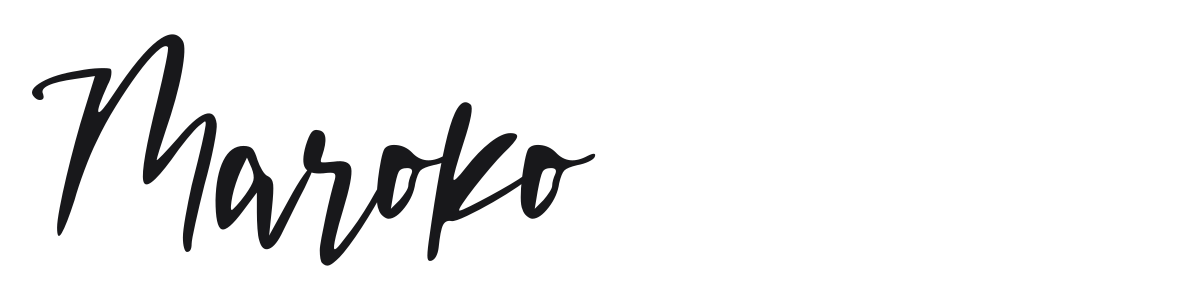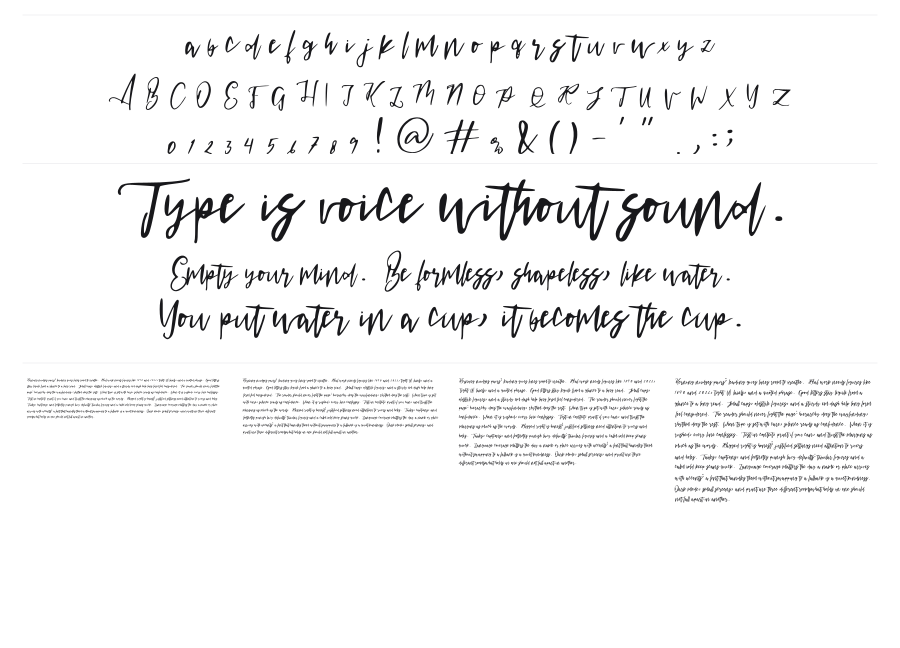
Maroko
Maroko is a casual brush script with the loose, energetic rhythm of hand-lettering done with a real ink brush. Thick downstrokes contrast sharply with wispy upstrokes, and the long sweeping ascenders give it an expressive, free-spirited quality. It reads instantly as handcrafted without feeling labored.